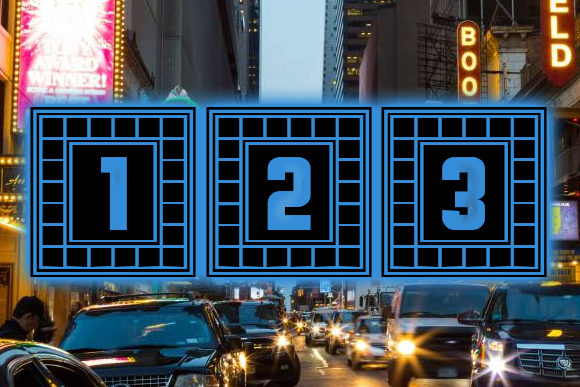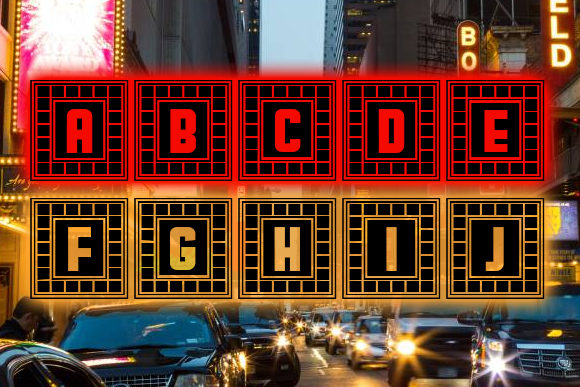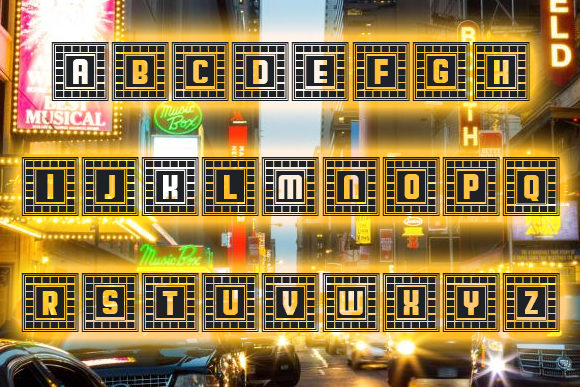
The Perfect Touch of Vintage Glamour: Unleashing the Magic of Broadway Capitals Font
Have you ever stumbled upon an old photograph, and suddenly, a wave of nostalgia washes over you? The faded colors, the worn edges, and the unique texture all come together to transport you to a bygone era. As a creative, you know that capturing that same essence in your work can be a real challenge. But what if I told you there’s a font that can help you achieve that vintage look with ease?
Enter the Broadway Capitals Font, a decorative font that’s as charming as it is versatile. This retro-style font is perfect for adding a touch of nostalgia to your crafting projects, from invitations and posters to digital art and more. Whether you’re a seasoned designer or a crafty enthusiast, the Broadway Capitals Font is an invaluable tool that will help you unlock your creative potential and take your projects to the next level.
Broadway Capitals Font Key Features
- Unique Characteristics: Broadway Capitals Font features a distinctive, elegant design with large x-height, making it ideal for use in titles, headings, and captions where legibility is crucial.
- Font Weight and Style: Broadway Capitals Font is available in a single weight, with a corresponding italic style, providing a cohesive and polished appearance in various contexts.
Broadway Capitals Font Review
As a designer, I’ve had the chance to work with the Broadway Capitals font, and I must say it’s a decent choice for certain projects. ✨ One thing I appreciate is its elegant and sophisticated feel, making it perfect for luxury branding, invitations, or high-end advertising campaigns. The font’s classic and timeless design is sure to evoke a sense of sophistication and refinement.
Another aspect that works well is its versatility. ✨ Broadway Capitals font is available in a range of weights, from Light to Bold, allowing designers to easily switch between styles to suit their needs. This flexibility makes it an excellent choice for projects where a consistent look is required.
- ⚠️ Limited language support: While Broadway Capitals font supports many languages, it’s not available in all languages, which might be a concern for global branding.
- ⚠️ Limited character set: The font’s character set is not as extensive as some other fonts, which might limit its use in certain contexts.
- ⚠️ Not suitable for body text: Due to its high x-height and wide letter spacing, Broadway Capitals font is not ideal for body text or long blocks of text.
In conclusion, Broadway Capitals font is a solid choice for specific design projects, particularly those requiring an elegant and sophisticated look. However, its limitations should be taken into consideration when choosing the right font for your project. Overall, I’d give it 3.5 out of 5 stars. It’s a great addition to any designer’s toolkit, but it’s not a one-size-fits-all solution.
Tip: Use the Broadway Capitals font to add a touch of elegance to your titles and headings.
Tip: Use the Broadway Capitals font to create eye-catching titles and headings for your designs.
Tip: Use the Broadway Capitals font to add a touch of sophistication to your presentations and documents.
The Broadway Capitals font is ideal for:
- Creating eye-catching titles and headings
- Adding a touch of elegance to your designs
- Creating sophisticated